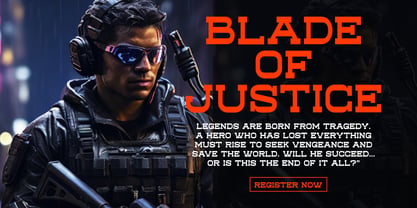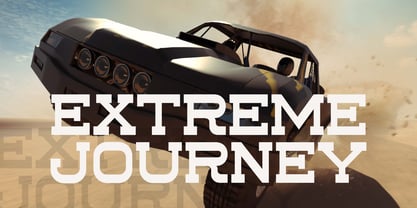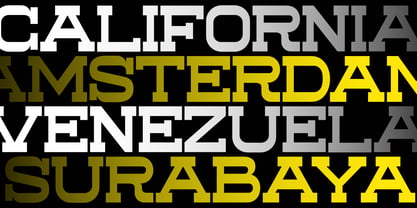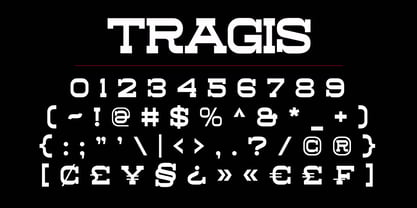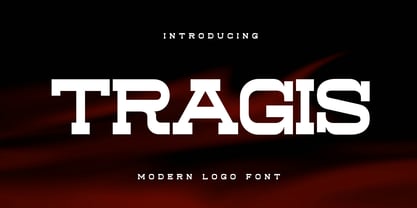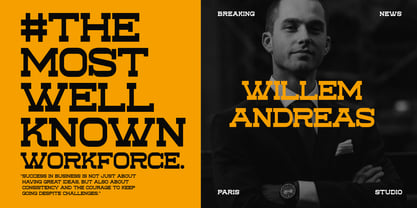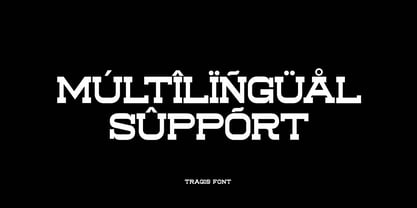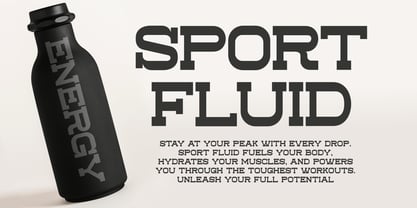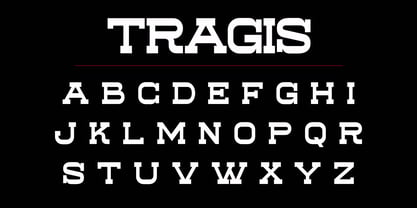
Tragis
Introducing a modern serif display font, perfect for sports, racing, and action-themed design projects.
This fresh serif display font is meticulously crafted for headlines, titles, and any typographic needs that demand a striking style. It’s ideal for emphasizing your design and drawing attention to important headlines. With its futuristic and modern vibe, this font is perfect for projects focused on communicating your core message.
Tragis Modern Serif Display Font includes:
• Preview samples to inspire your design with the Varien font.
• Fully equipped with uppercase characters.
• Multilingual support.
• Number and symbol.